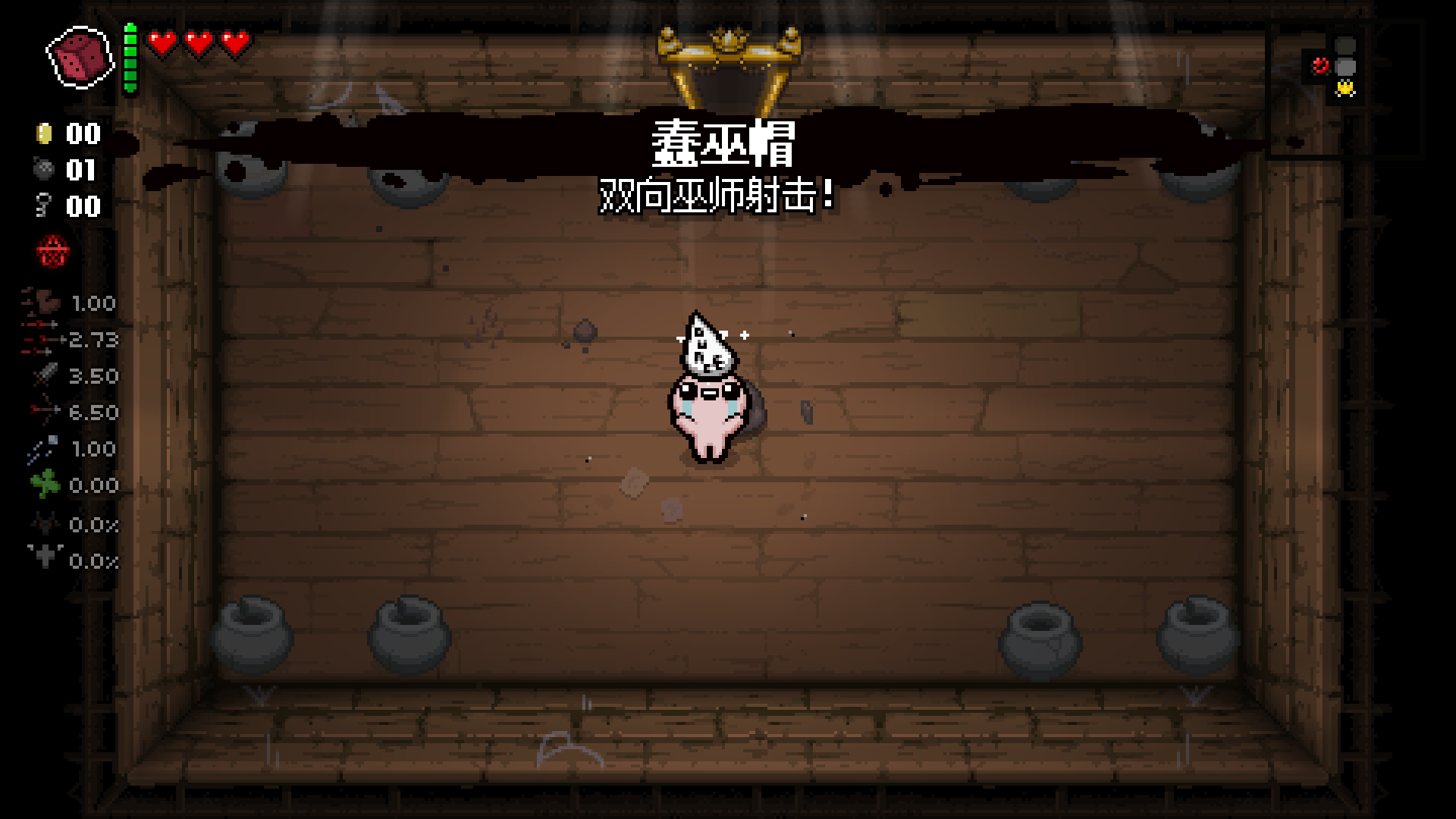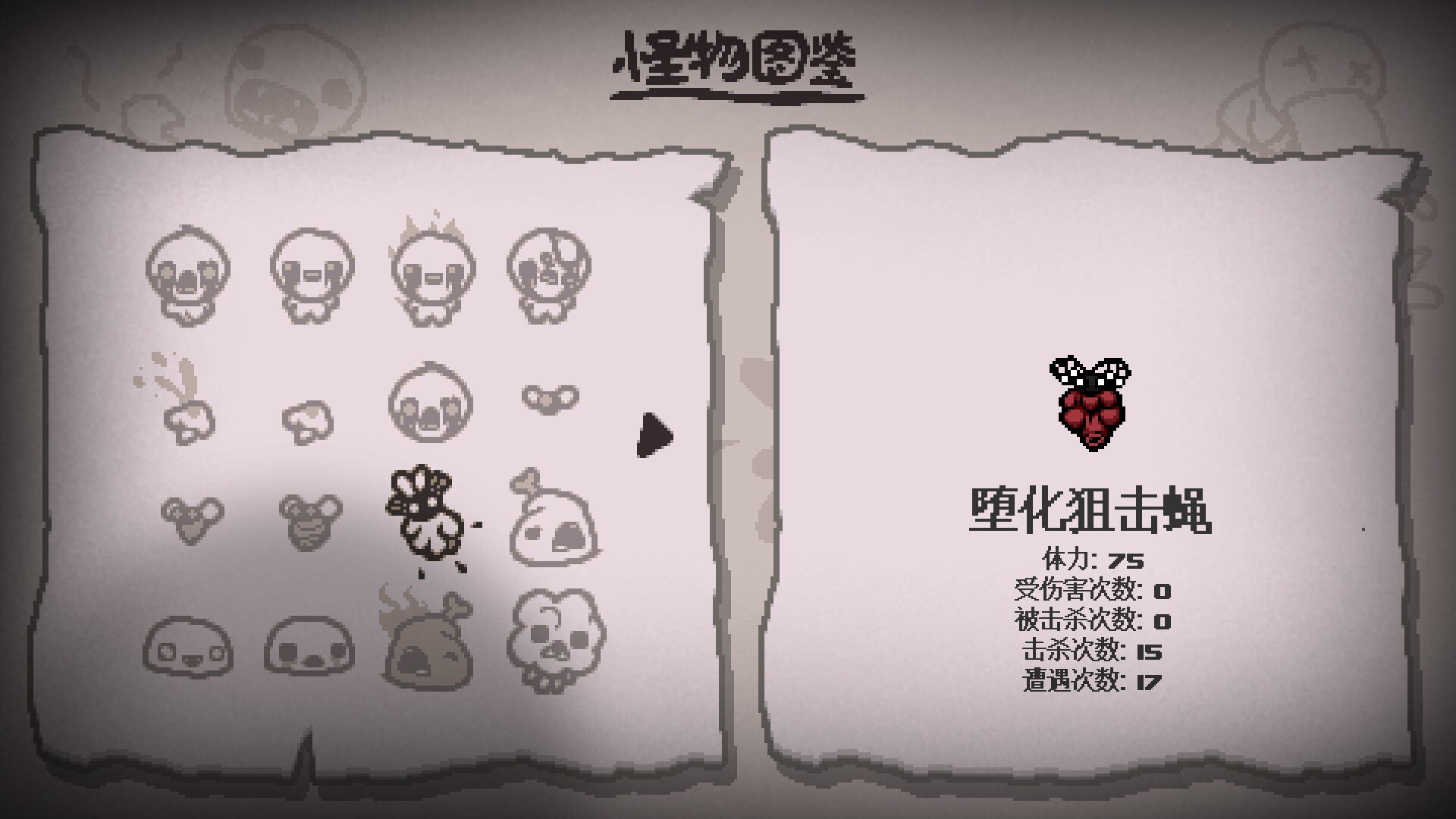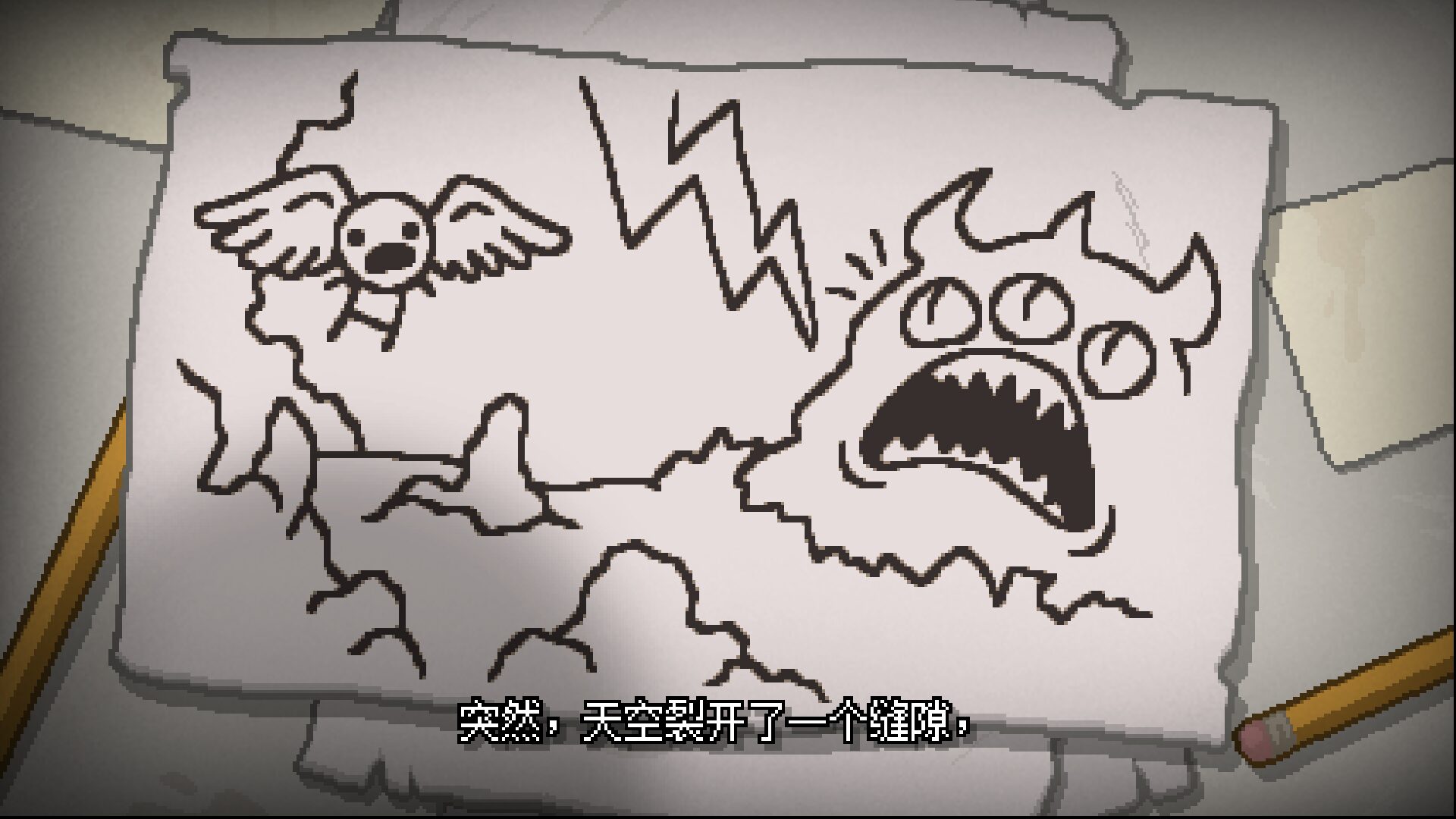
MAX Font For Chinese
Enhance Your Binding of Isaac: Rebirth Experience with MAX Font For Chinese
Tired of straining your eyes to read the in-game text in The Binding of Isaac: Rebirth? The MAX Font For Chinese mod is here to offer a clearer, more comfortable visual experience for players utilizing the official Chinese localization. This mod specifically targets the smaller, often difficult-to-read 10-pixel font and the game’s title font, ensuring that every piece of text is crisp and legible.
Addressing Readability Issues
The official Chinese text in The Binding of Isaac: Rebirth, while comprehensive, can sometimes present characters that appear smaller or flatter than ideal, leading to eye fatigue during extended play sessions. The MAX Font For Chinese mod directly combats this by resizing and adjusting these crucial text elements. This ensures that whether you’re deciphering item descriptions, understanding enemy attack patterns, or navigating the game’s menus, you can do so with ease and clarity.
Key Features and Benefits
This font mod offers several advantages for players:
- Improved Readability: Significantly enhances the legibility of the primary in-game Chinese font and title text.
- Reduced Eye Strain: Makes longer play sessions more comfortable by presenting text in a clearer, more accessible format.
- Comprehensive Character Support: Largely resolves missing character issues within the localized text.
- Targeted Modifications: Specifically alters the 10-pixel font and title font, leaving other game text untouched for a cohesive experience.